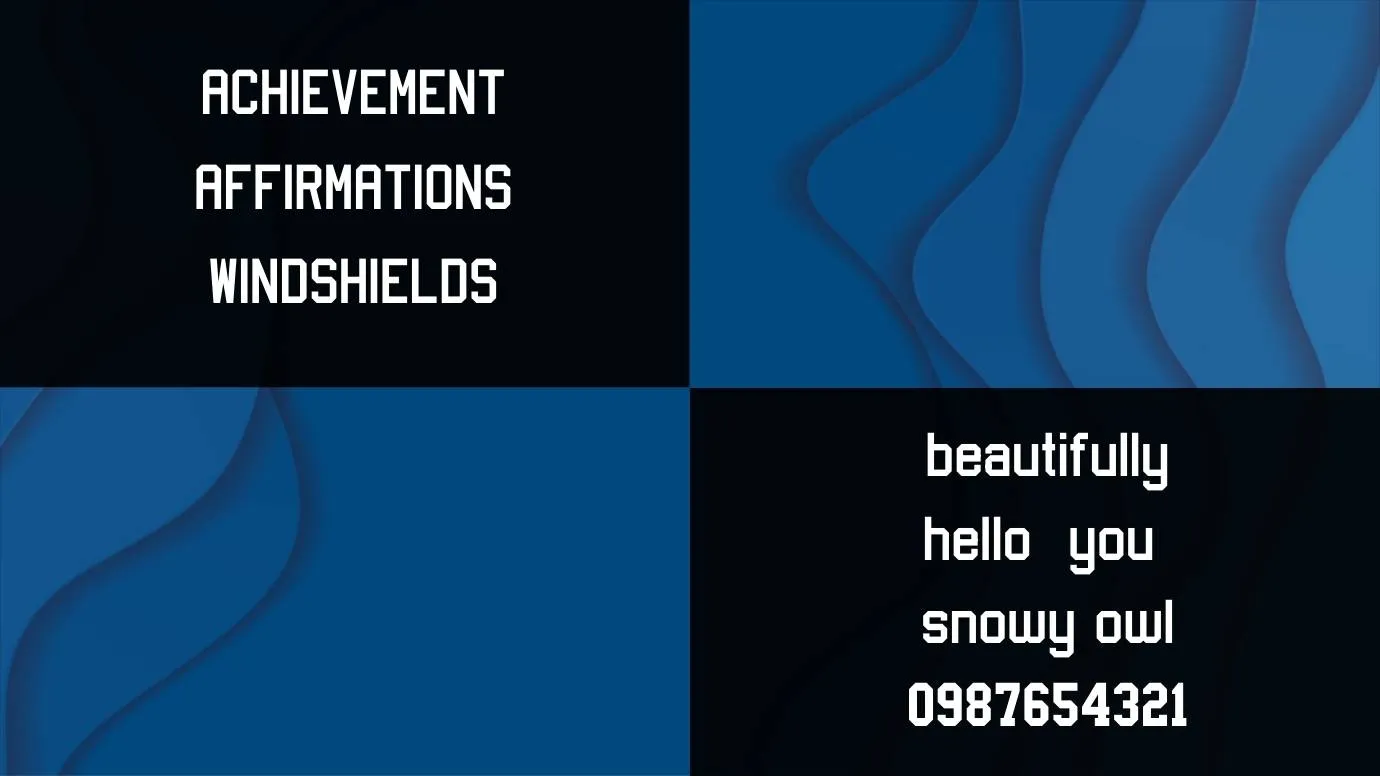
Sports Jersey Font is a font that was created to be used on sports jerseys. It is a very Bold and Blocky font that is easy to read from a distance. This font is perfect for any team that wants to have their name or logo stand out on their jerseys.
Sports Jersey typeface is available in different styles and weights, so you can find the perfect one for your team’s jerseys. The different styles of Sports Jersey typeface are Regular, Bold, Italic, Condensed, and Expanded.
Creator of Sports Jersey Font
This stunning and unique typeface is created by typeface designer Arthur Lui for the foundry Arfurware in 2004.
This font style is designed with an exclusive and regular style. This single attractive style is a mixture of many different characteristics, containing capital and small letters, number, special characters, glyphs, punctuations, symbols, and many language support.
| Name | Sports Jersey Font |
| Style | Decorative |
| Designer | Arthur Lui |
| Foundry | Arfurware |
What is Sports Jersey Font in Word?
Sports Jersey typeface in Word is a font that was created to be used on sports jerseys. It is a very Bold and Blocky font that is easy to read from a distance. This font is perfect for any team that wants to have their name or logo stand out on their jerseys.
Why do brands use Sports Jersey Font?
Brands use the Sports Jersey typeface because it is a very Bold and Blocky typeface that is easy to read from a distance. This font is perfect for any team that wants to have their name or logo stand out on their jerseys.
Why is the Sports Jersey typeface so popular?
Sports Jersey typeface is so popular because it is a very Bold and Blocky texture that is easy to read from a distance. This font is perfect for any team that wants to have their name or logo stand out on their jerseys.